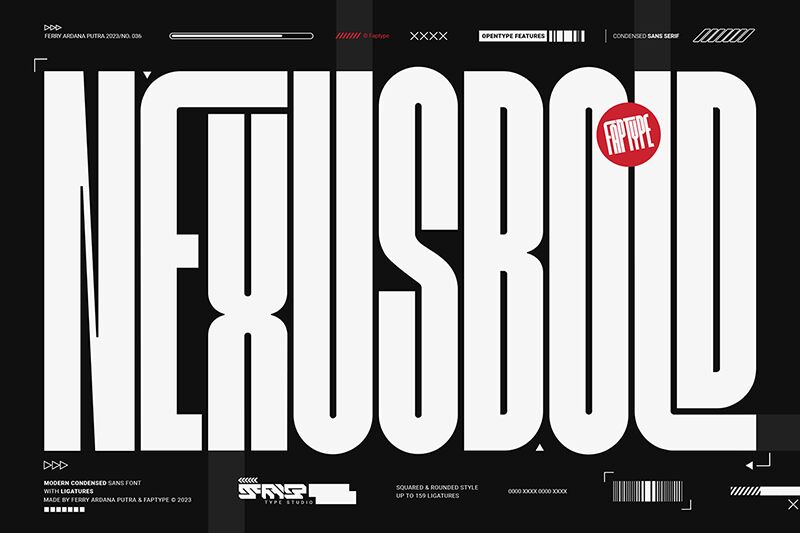
Nexusbold
Nexusbold is a free condensed sans serif font, created by Ferry Ardana Putra. This bold font carries a futuristic look with geometric shapes making it excellent for titles, headings, posters, labels, and other creative print, branding, and web projects.